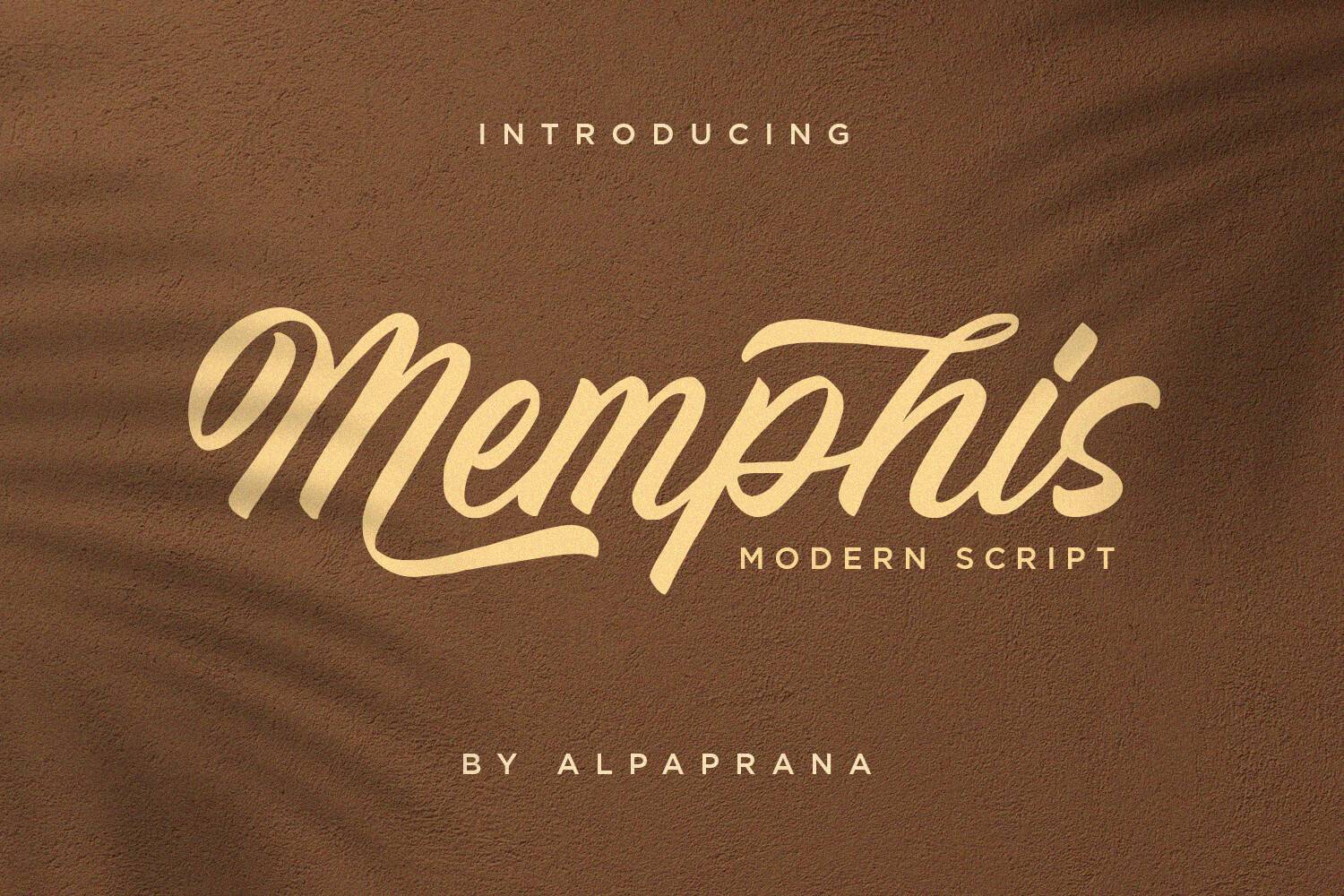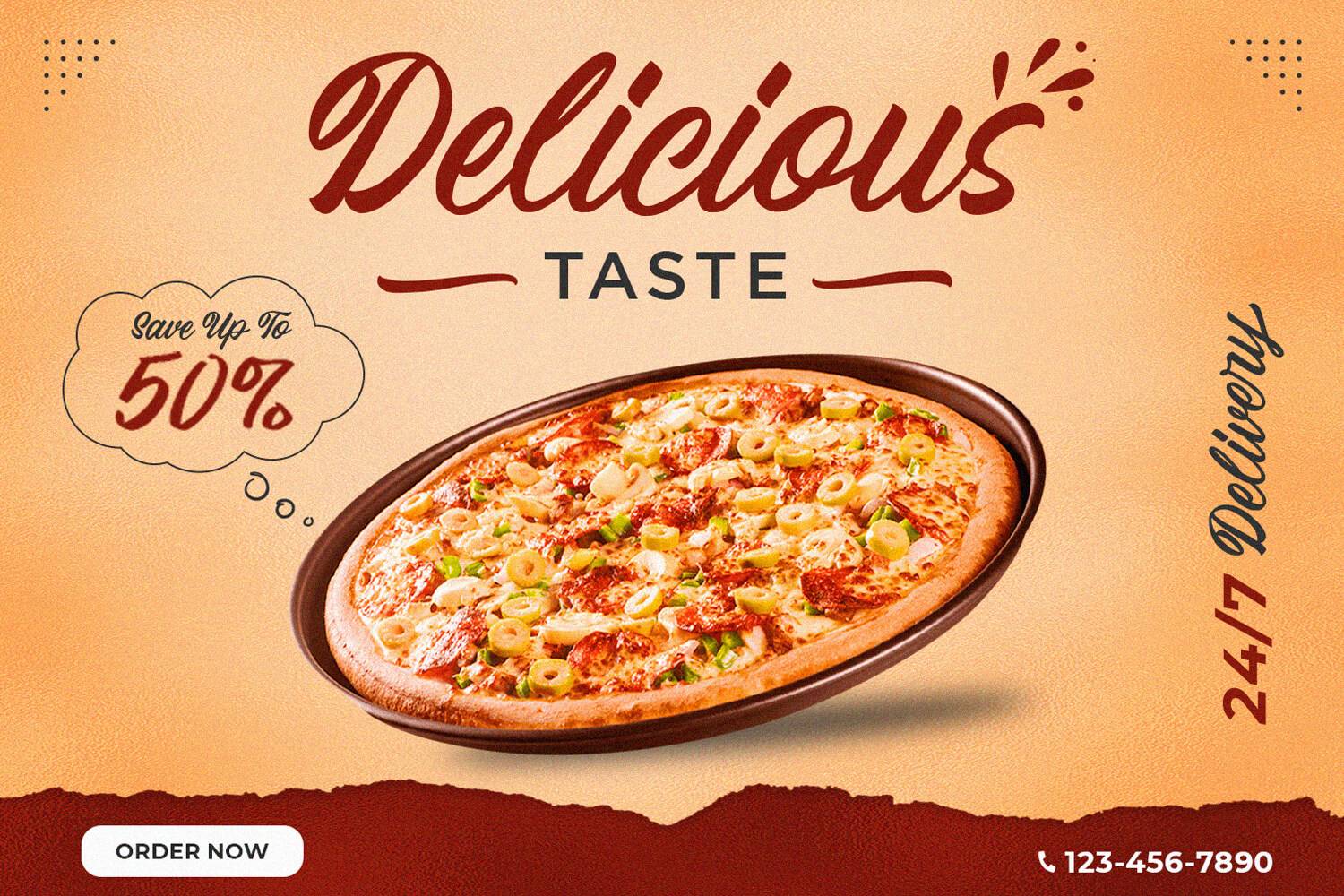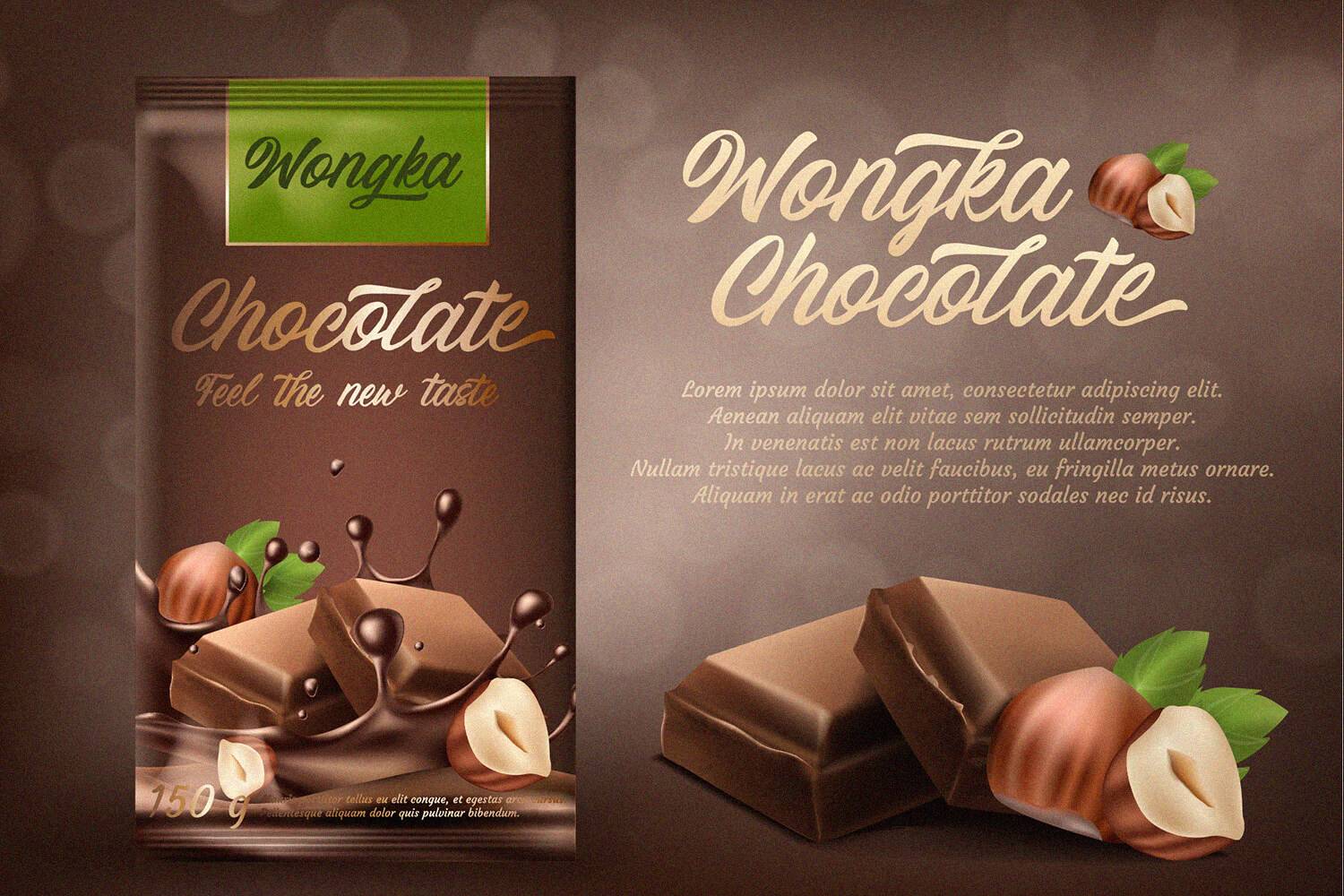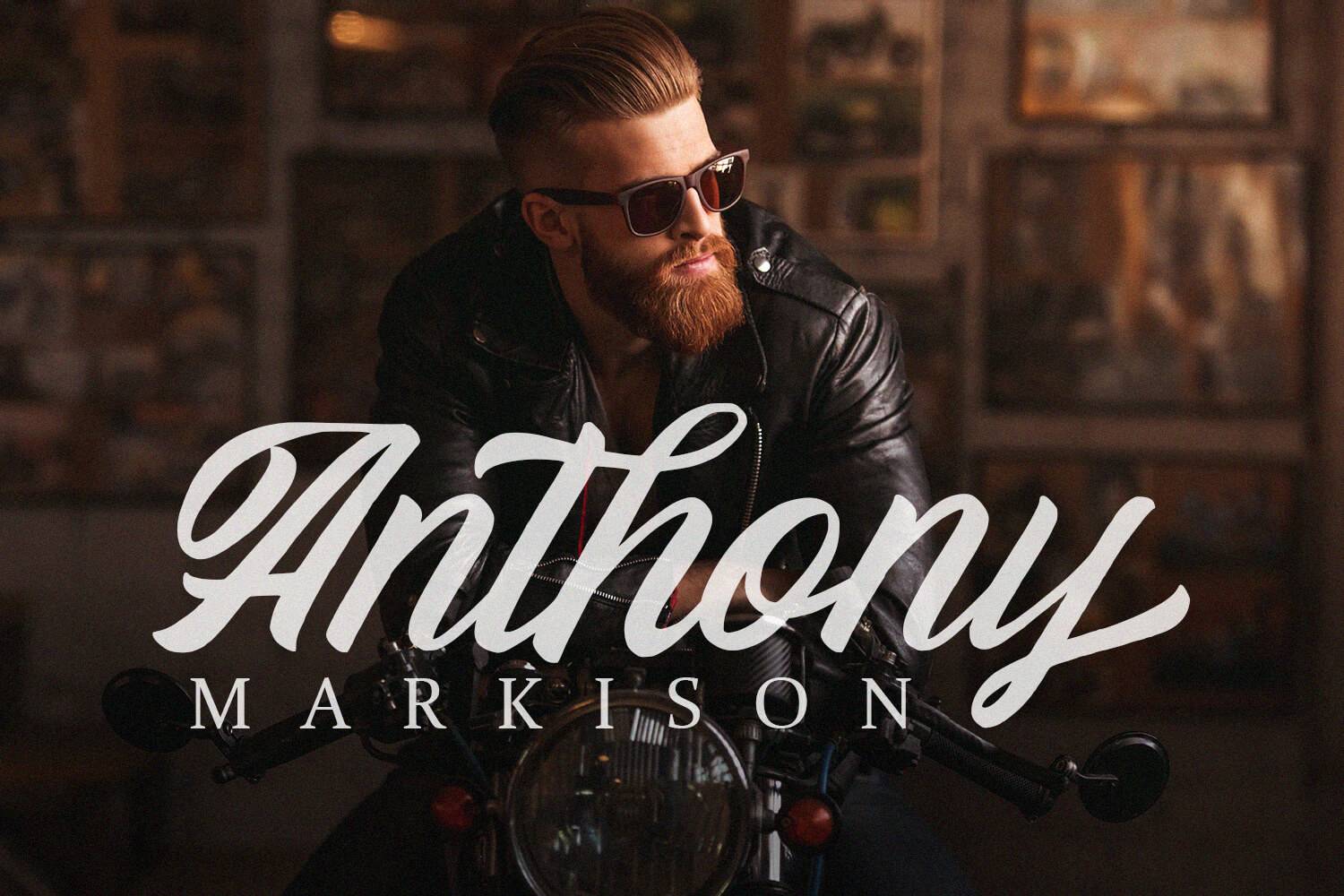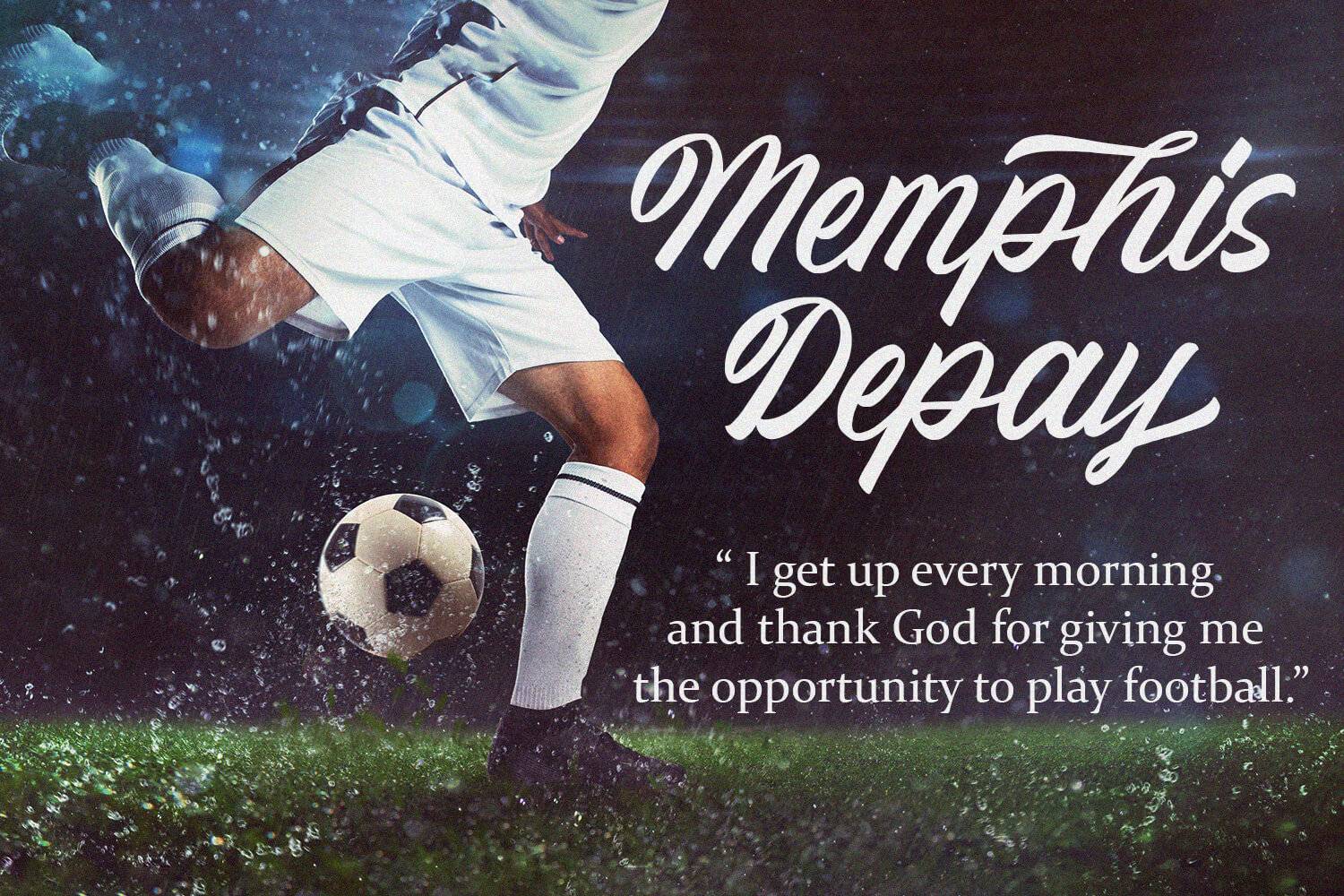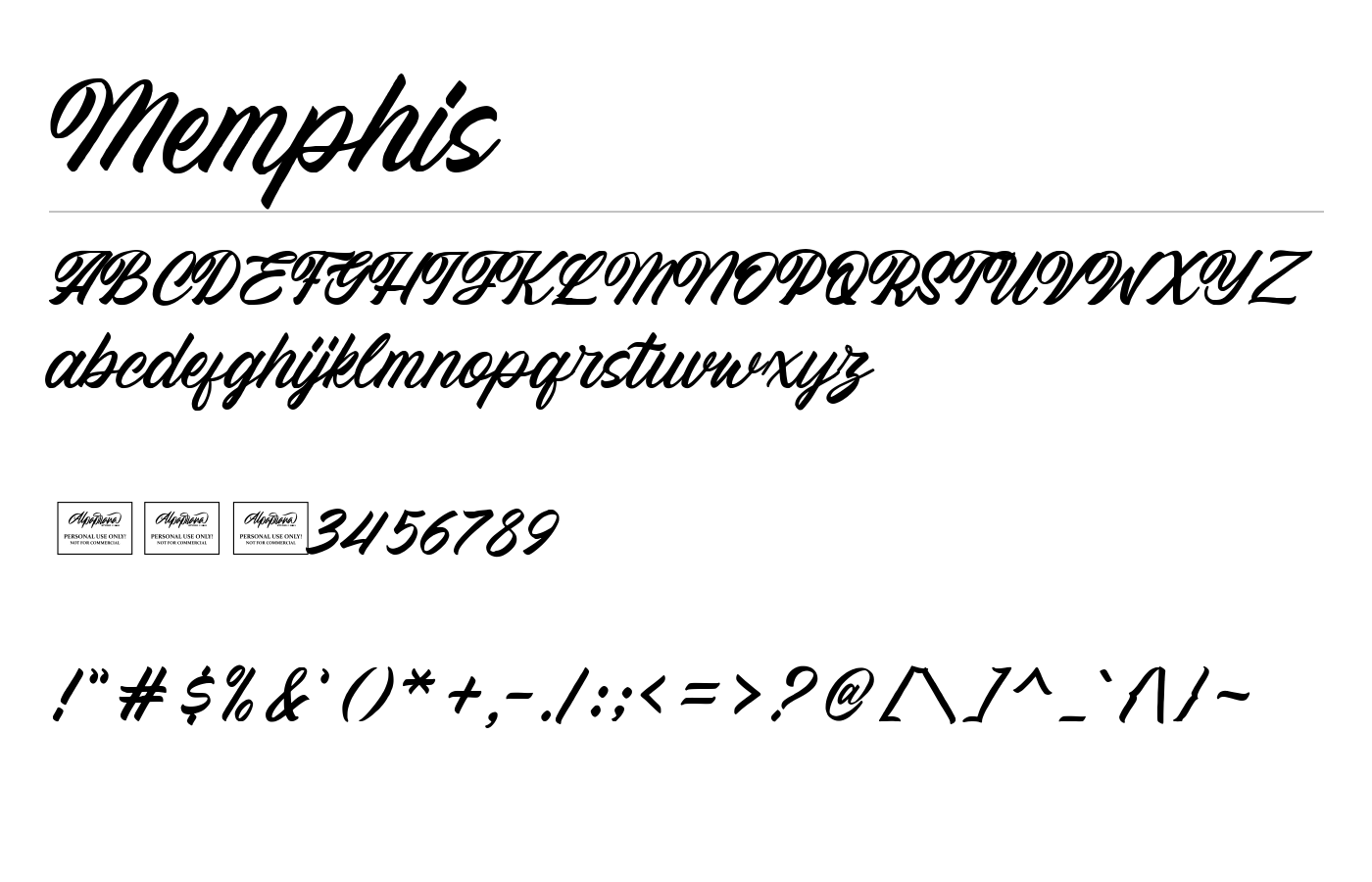
Memphis is a bold, elegant script font with smooth, flowing strokes and a classic cursive style that exudes sophistication and charm. Its slightly condensed letterforms and balanced weight make it ideal for luxury branding, invitations, and stylish headlines where a refined yet approachable feel is desired. This font works beautifully in contexts that call for a personal touch with a sophisticated flair.
Memphis Font
About Memphis Font
| Font family | Memphis Font |